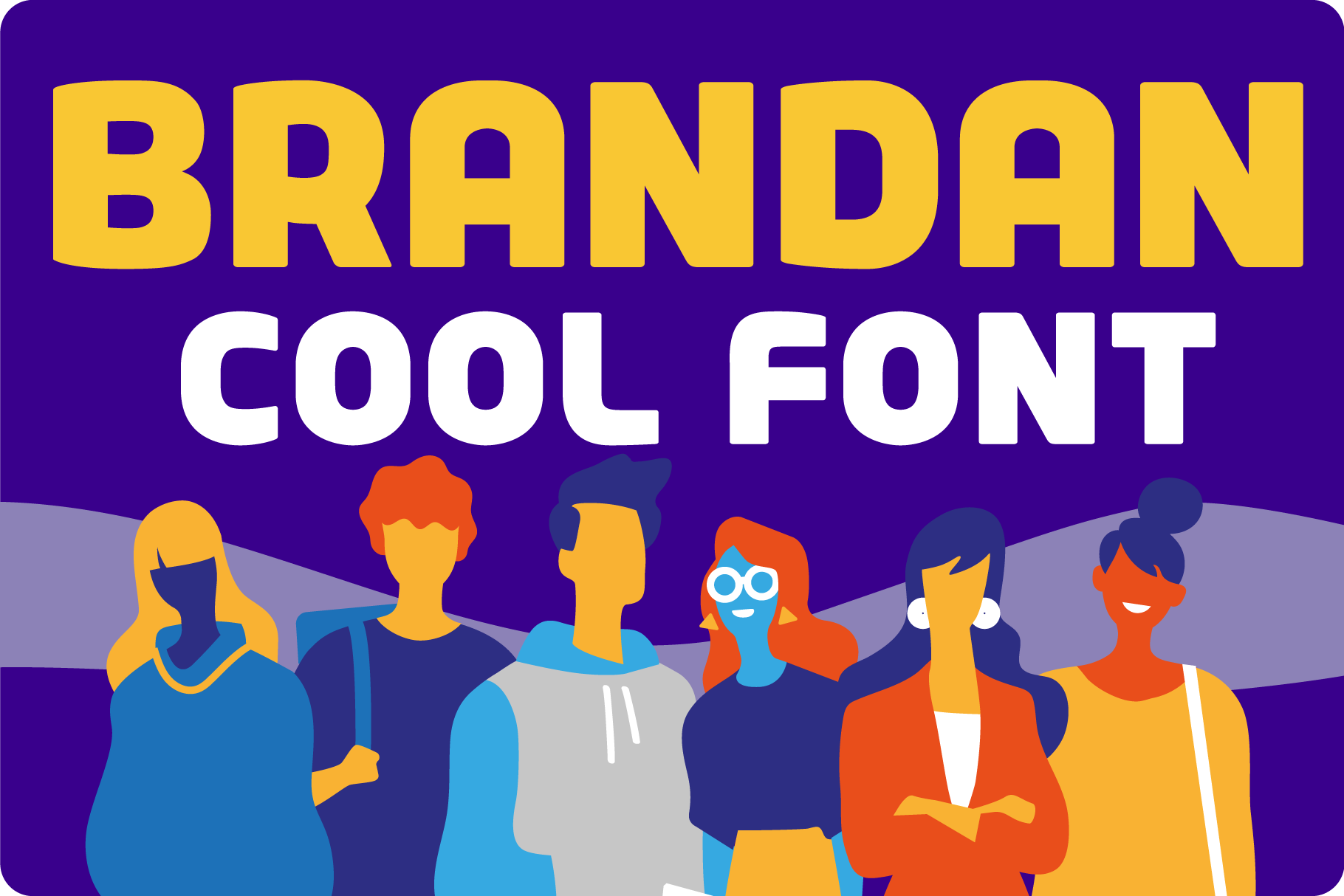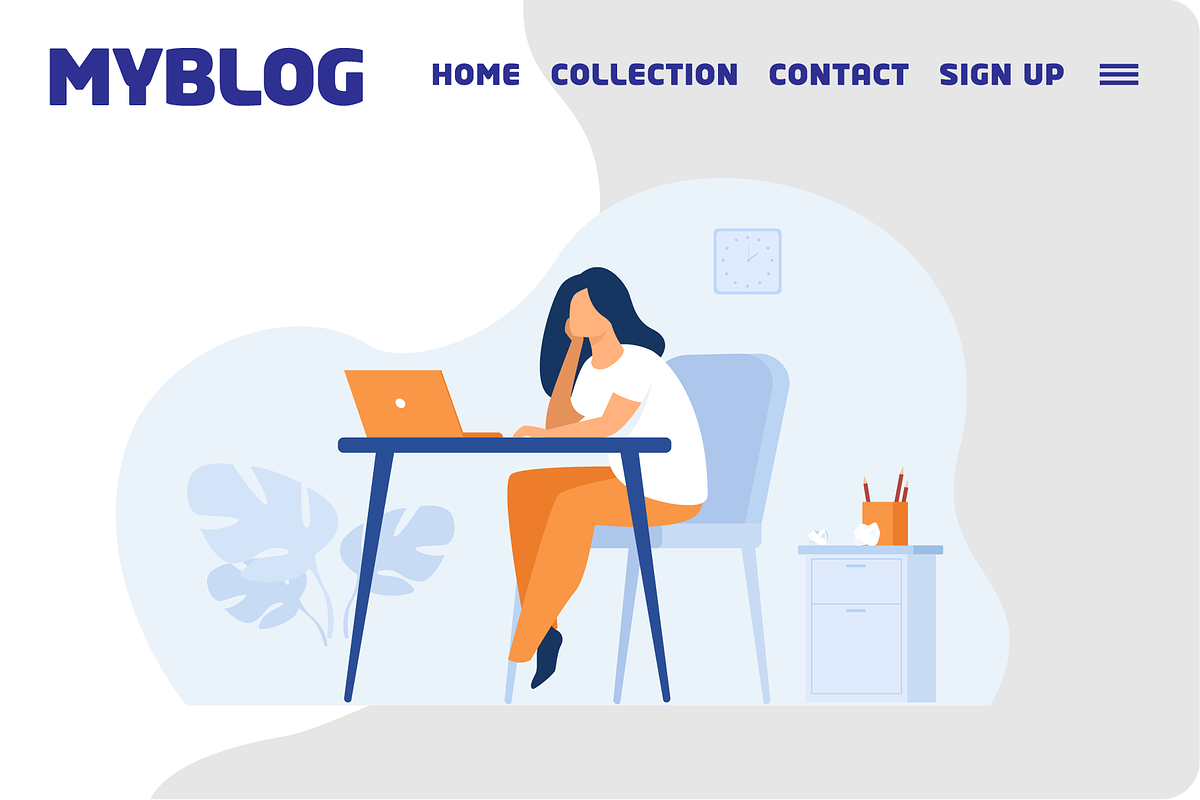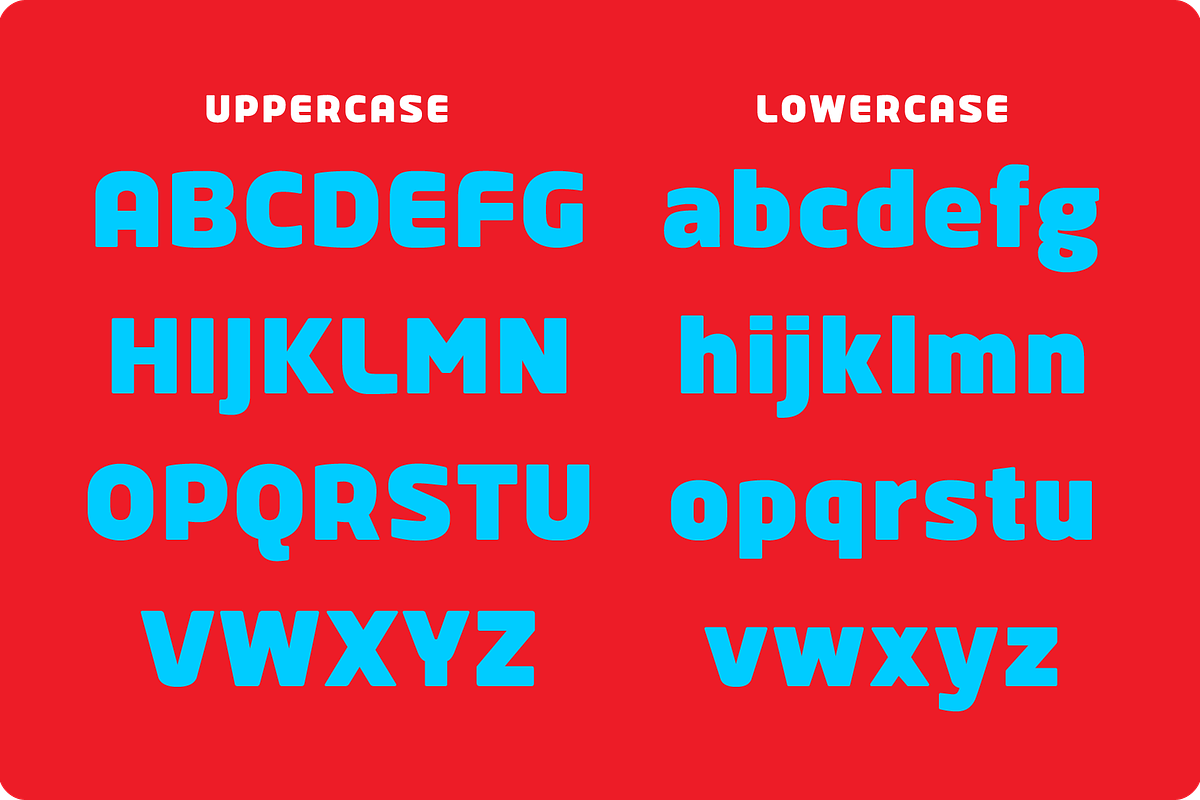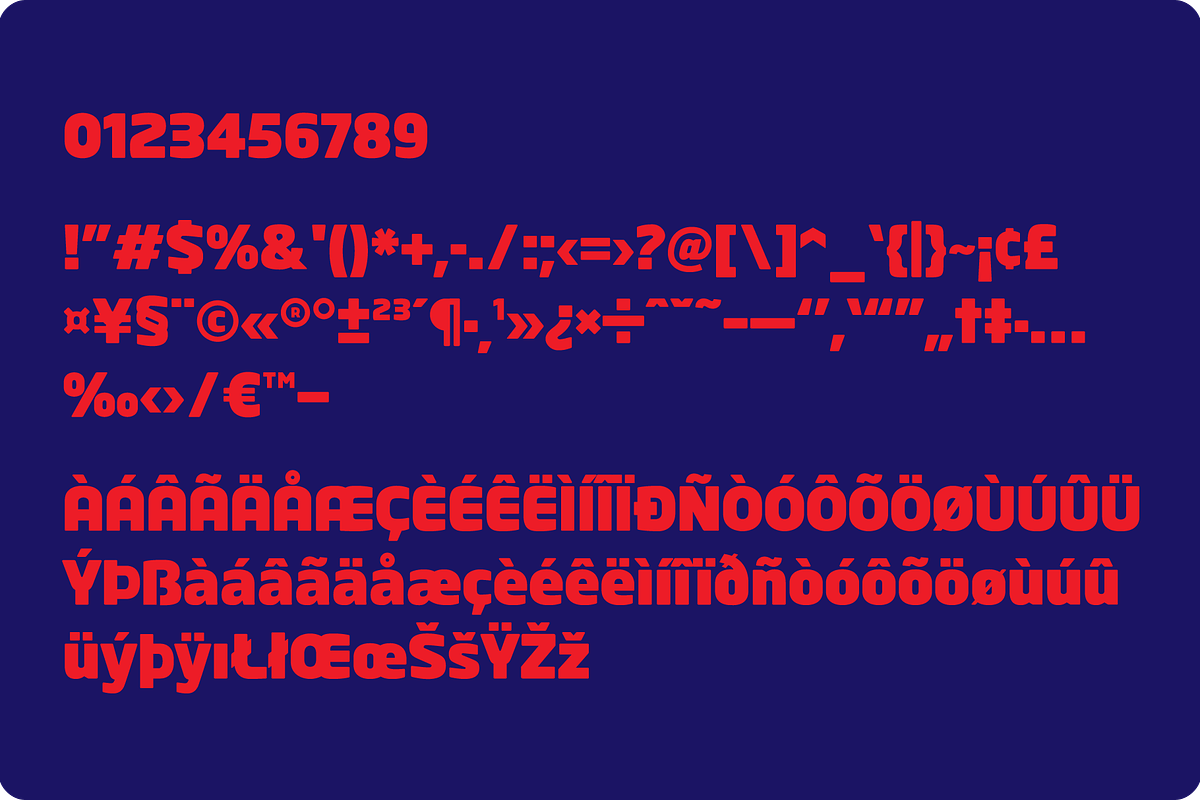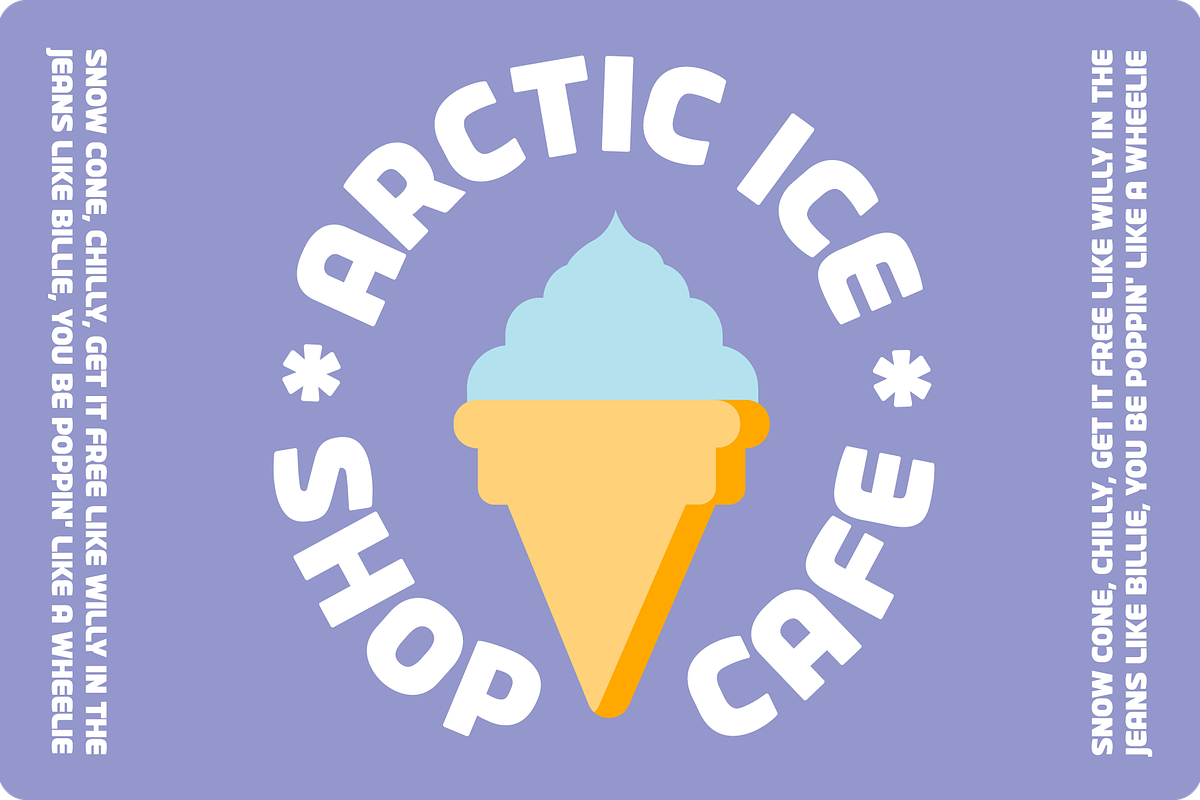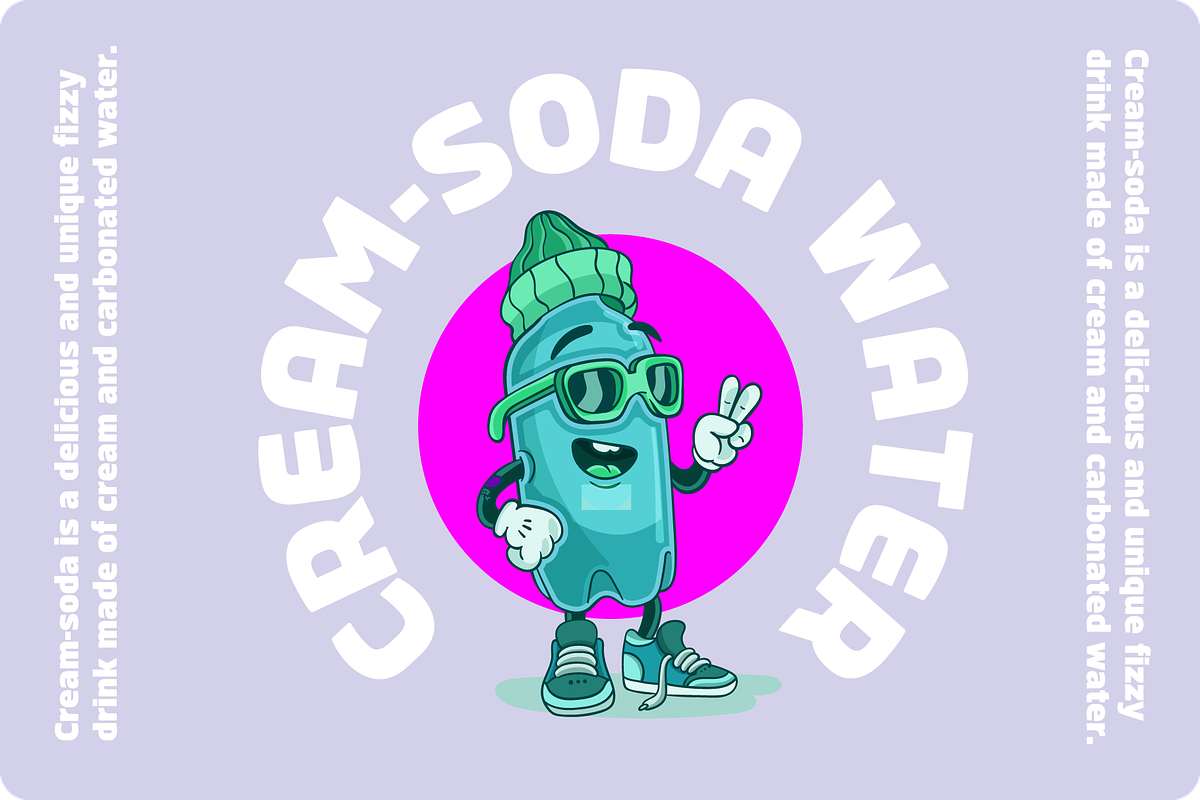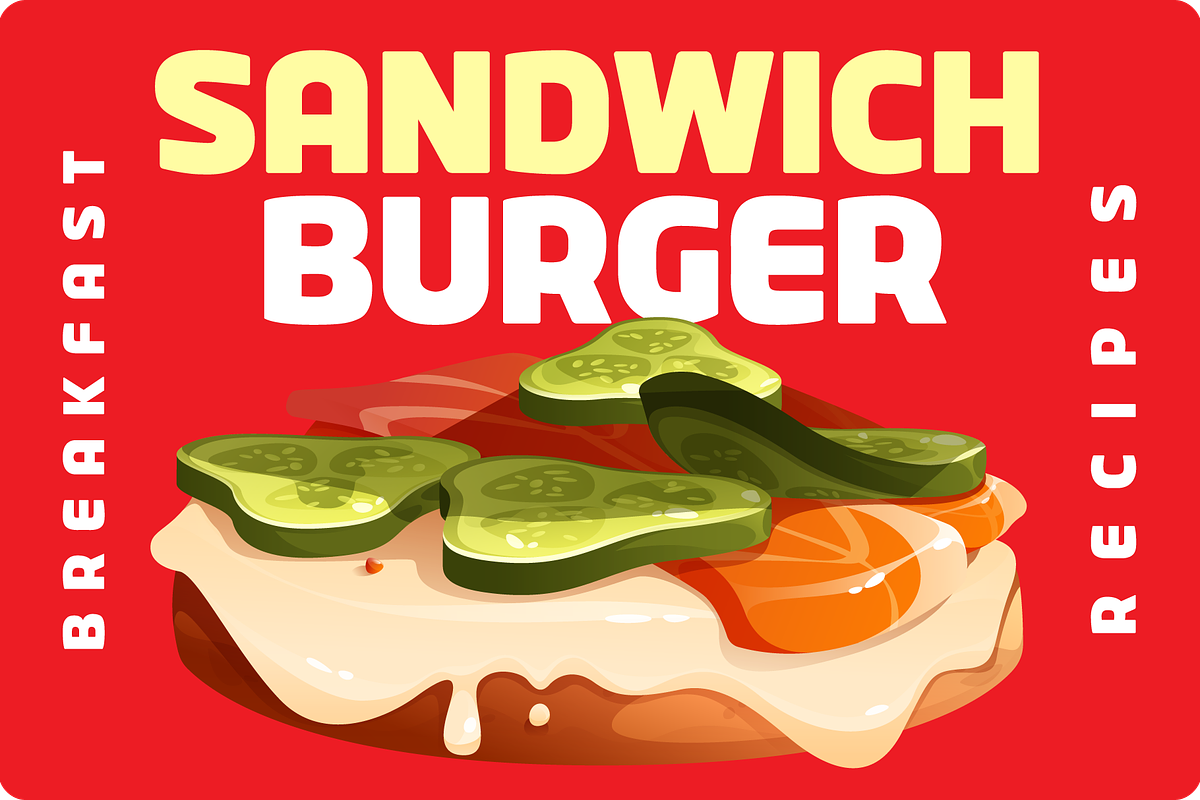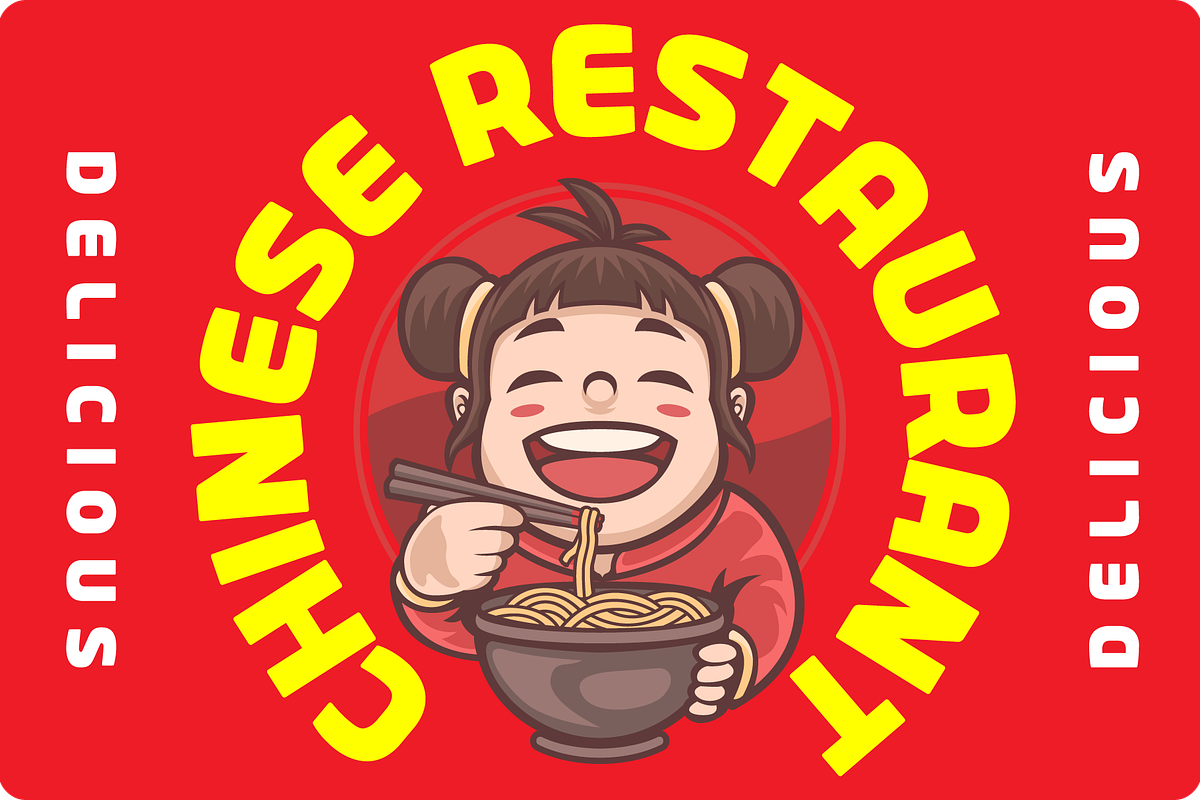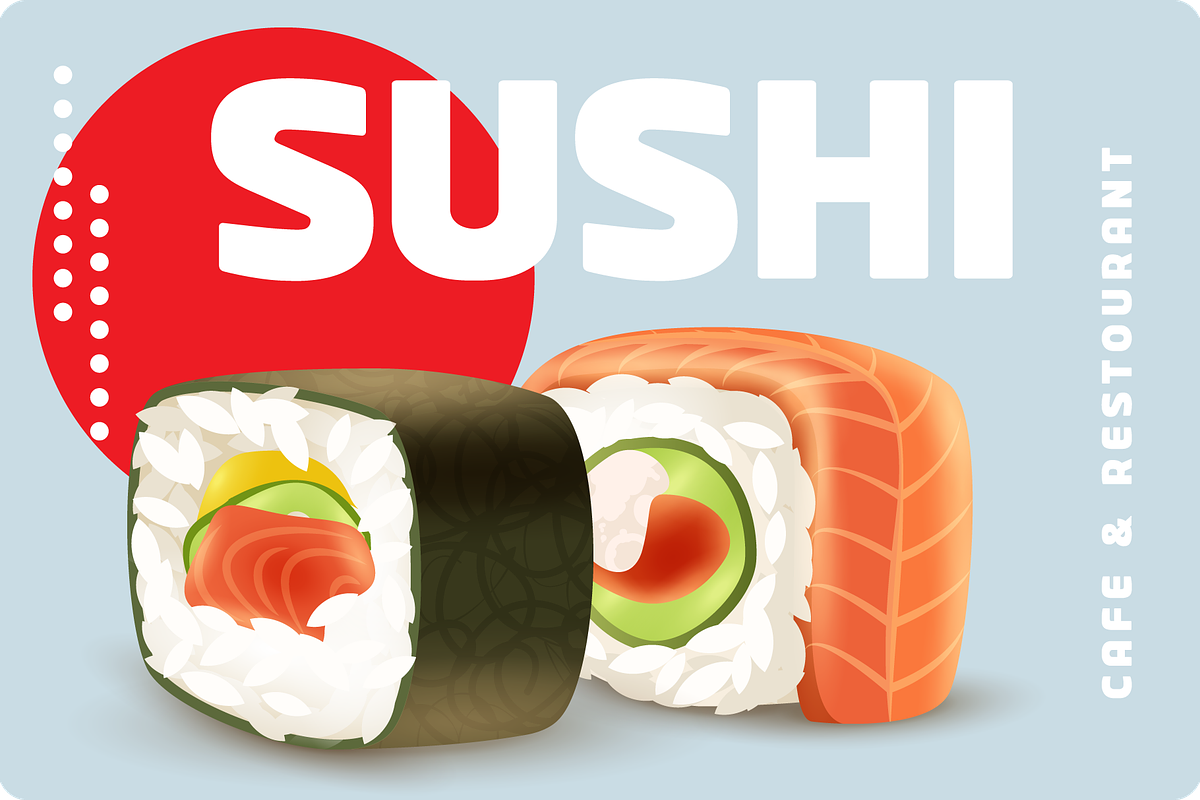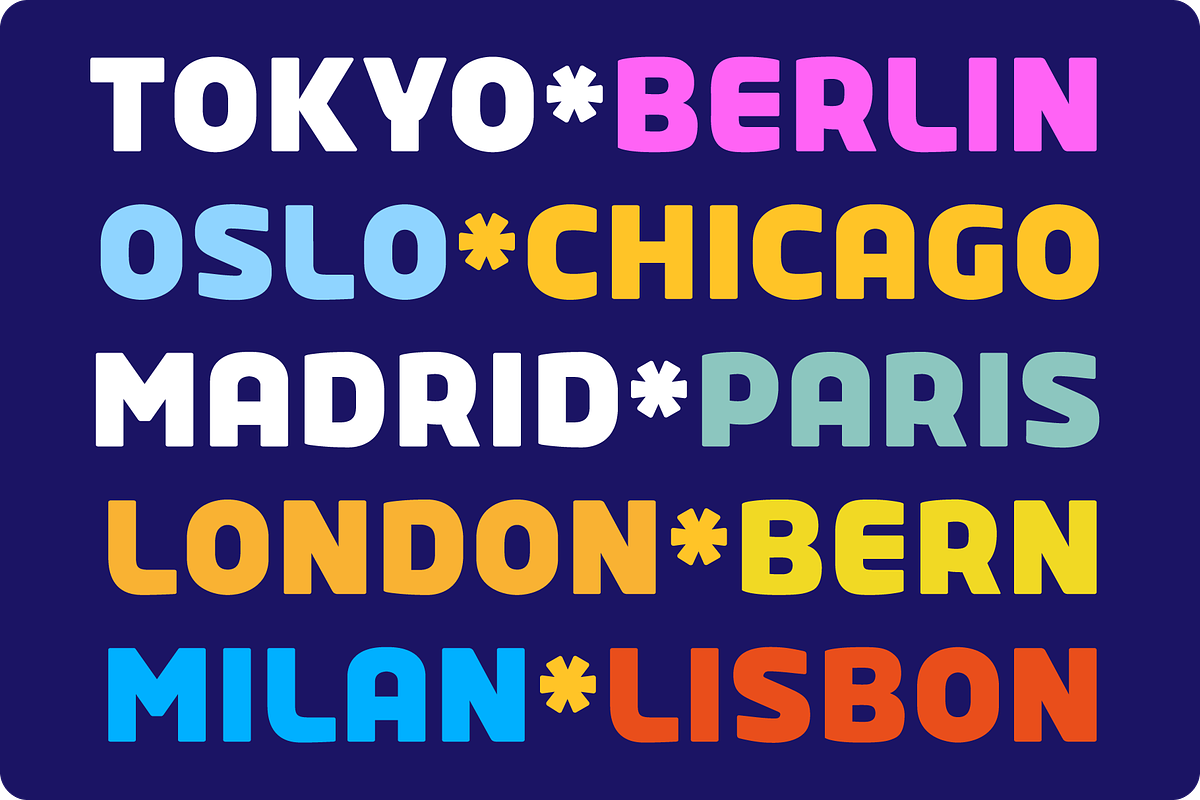
Brandan font
This modern and cool font is sure to give your logo, text, or any other design element a unique and eye-catching look. Whether you're looking for a font for a logo, lettering, website, or something else entirely, Brandan font has got you covered. Plus, it looks great on both light and dark backgrounds, so you know your design is going to look nice no matter where it's seen. Check out Brandan font today and give your design a professional edge!